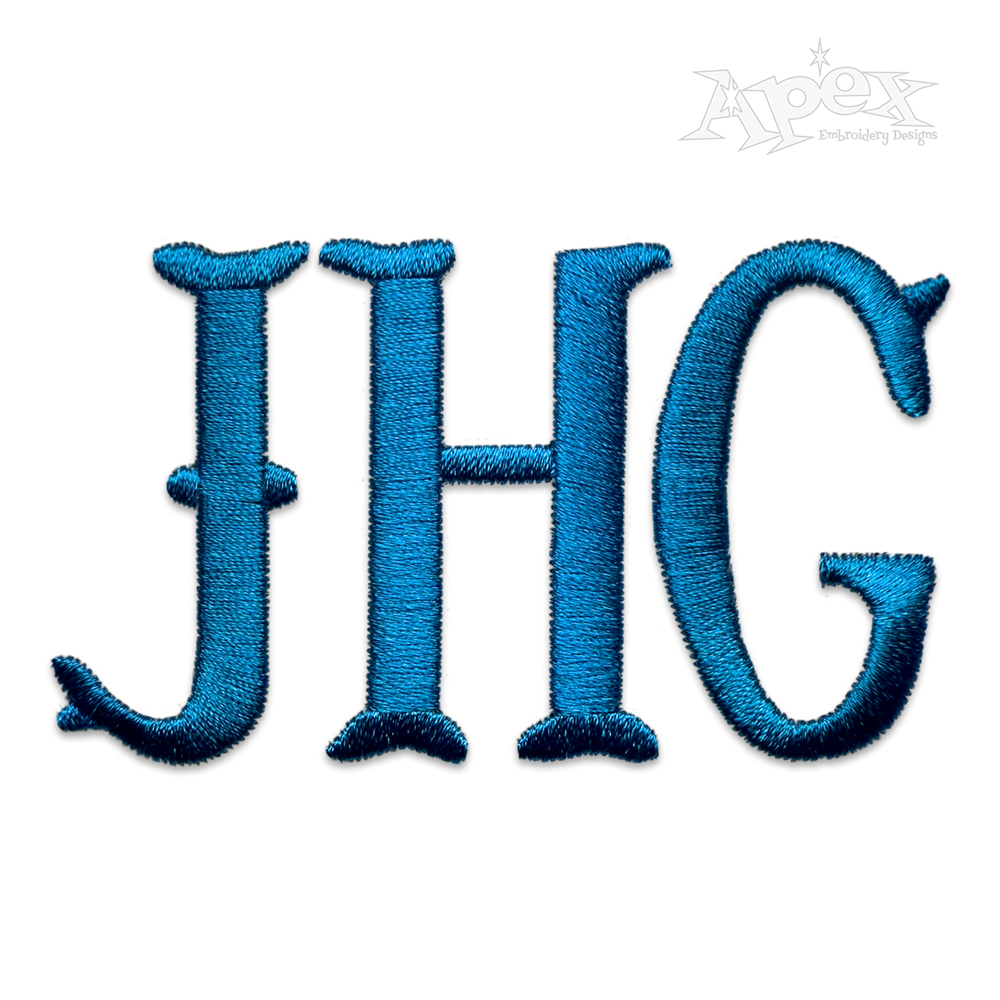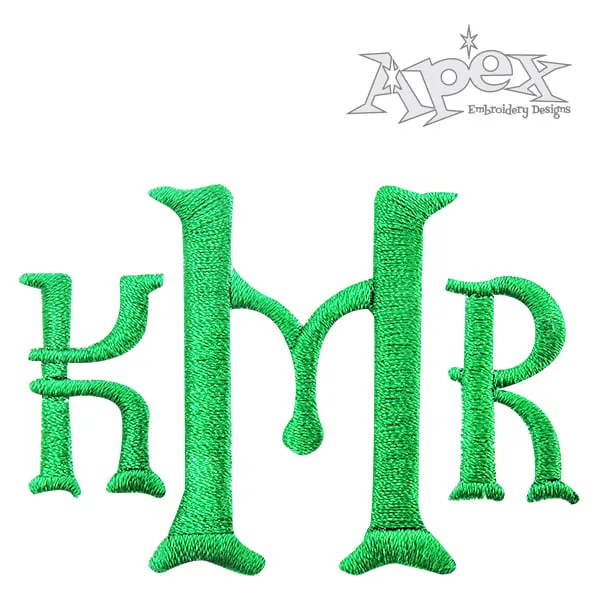
Athens Embroidery Font
Inspired by classical symmetry and the enduring beauty of Mediterranean architecture, the Athens Embroidery Font was born from a desire to bring statuesque poise to contemporary needlework. When drafting these letterforms at the digitizing board, we envisioned a design that balanced aristocratic restraint with effortless modernity. Rendered entirely in fluid, unbroken satin stitching, each character reflects light like polished marble, imparting an understated luxury to fabrics. Whether monogramming fine coastal linens or personalizing structured resort wear, Athens delivers crisp visual harmony and tailor-made refinement to every finished hoop.
This masterfully digitized satin stitch alphabet is provided in four versatile, scale-graduated sizes to accommodate everything from subtle personalizations to prominent statement monograms:
Project Ideas for Athens Embroidery Font
- Luxury Table Linens: Embroider crisp, single-letter monograms onto linen cocktail napkins and runner ends to curate an elevated, Mediterranean-inspired dining tablescape.
- Bespoke Resort Wear: Stitch understated initials onto the chest pockets of linen button-downs, cotton piqué polos, and terrycloth cabana shirts.
- Heirloom Bedding & Bath: Personalize Egyptian cotton pillowcases, waffle-weave bath sheets, and piqué bed covers with classic family initials that endure through generations of laundering.
- Bridal & Milestone Gifting: Create treasured keepsakes by monogramming silk bridal loungewear, canvas boat totes, travel jewelry cases, and velvet cosmetic pouches.
- Corner Diagonal: Set your embroidery at a 45-degree angle in the corner of cloth dinner napkins and pocket squares, positioning the base of the letter approximately 1.5 to 2 inches from the hemline.
- Center Chest: Place the 1.5-inch or 1.75-inch size centered across the chest of sweatshirts, spa robes, and lounge sets for an athletic, country-club aesthetic.
- Cuff & Hem Detailing: Position the 0.75-inch size on the left sleeve cuff of a tailored dress shirt, reading horizontally with the cuff unbuttoned or positioned subtly near the buttonhole.
- Flange & Border Offsets: On decorative shams or guest towels, place a three-letter monogram centered 2 inches above the lower hemstitching or woven border to anchor the composition naturally.
Athens Embroidery Font Craft & Letterform Details
The beauty of the Athens Embroidery Font lies within its disciplined digitizing architecture. Rather than relying on automated conversions, every stroke, serif, and curve was individually path-mapped to govern exact stitch direction and thread tension. We engineered deliberate, featherweight underlay stitching beneath the columns to lift the surface threads above the weave, guaranteeing that the high-sheen satin fills maintain their pristine, knife-edge clarity even on textured linens, piqué, and plush terry.
Subtle tapers at each terminal mirror the chisel-carved precision of classical inscriptions, preventing needle cluster and thread buildup at high-stress intersection points. The satin columns are calibrated with dynamic densities that flex with fabric movement while remaining dense enough to block base fabric shadow-through. The result is a stitch-out that runs smoothly from machine start to finish, yielding a silken, sculptural alphabet worthy of your finest custom needlework.